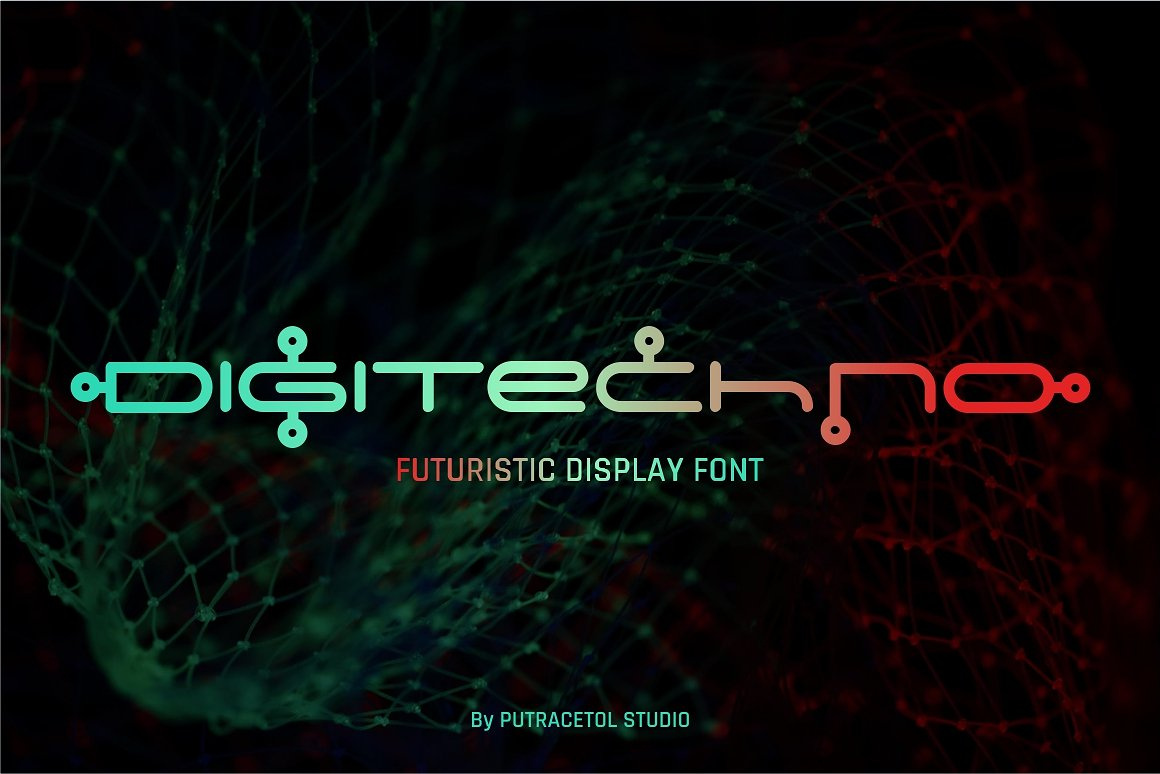
FREE Futuristic Display Font - Digitechno
This font is also support multi language.
Comes with feature :
– Uppercase
– Lowercase
– Alternate
– Number, Punctuation And Symbols